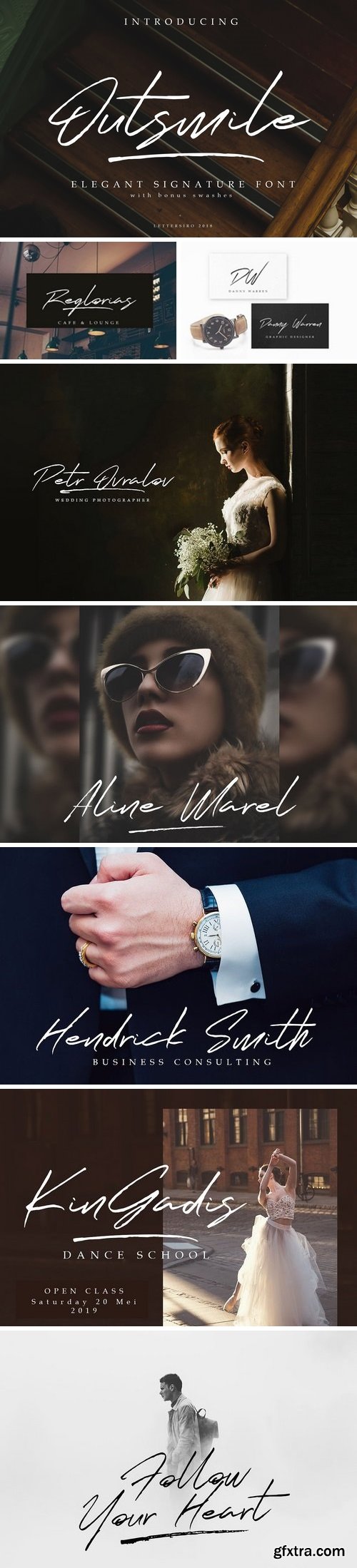
CM - Outsmile Elegant Signature Font 2838776
Outsmile Font is modern handwritten font. Outsmile is Perfect and very elegant for branding, signature, watermark, business card, clothing, magazine, web, and any other design projects. This font is easy to use, simple, and classy.